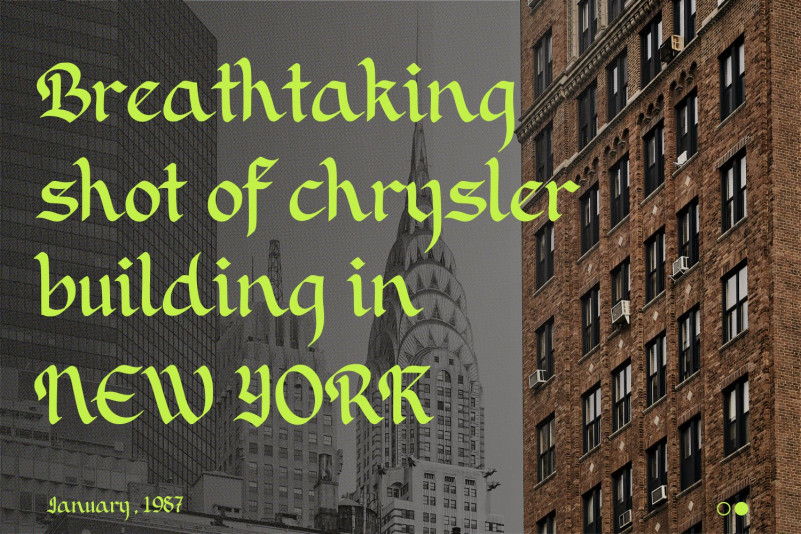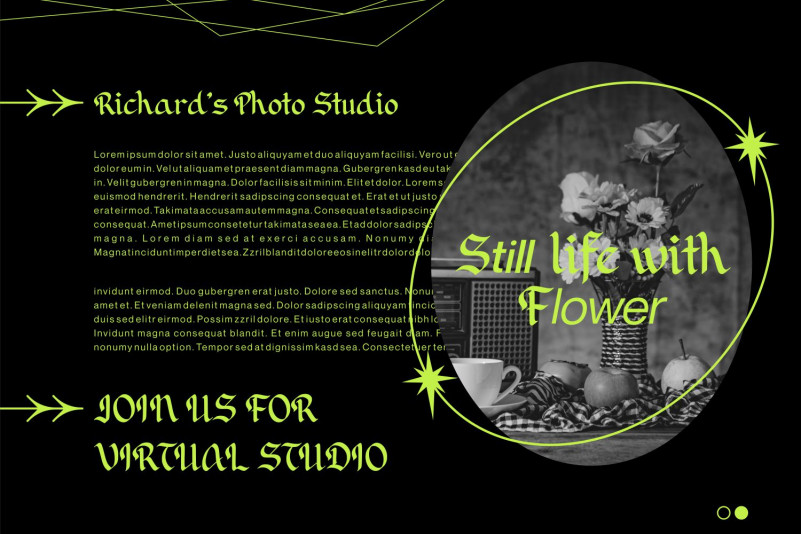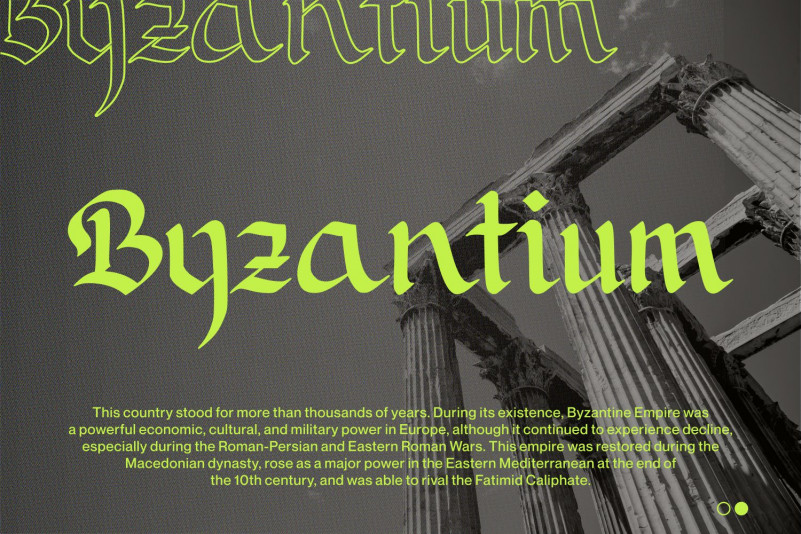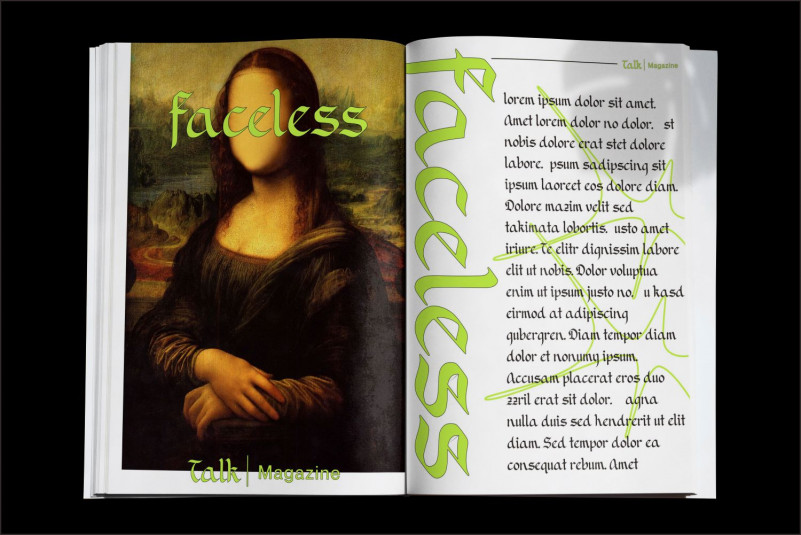
Xwisth Font
Xwisth Display Font
This is a cool, elegant and imposing blackletter font. It can be used to a variety of designs, both formal and personalized. Get inspired by its incredibly versatile style and use it to create spectacular designs!